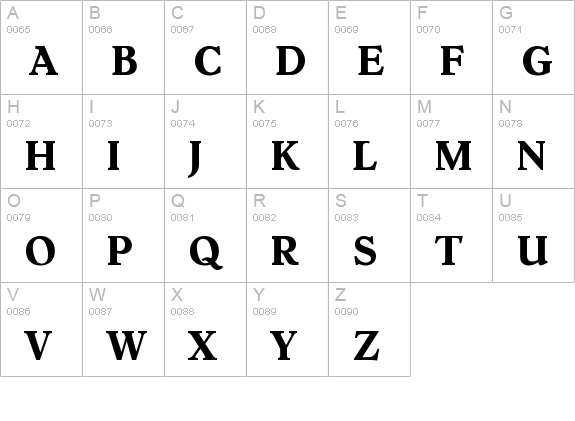
HobokenSerial-Bold is a strong, high-contrast variant in the HobokenSerial typeface family \xE2\x80\x94 well suited to headlines, attention-grabbing titles, and strong calls-to-action.
HobokenSerial-Bold is a striking and modern font that exudes confidence and strength. With its bold and commanding presence, this typeface is perfect for making a strong statement in your designs. The thick, clean lines of HobokenSerial-Bold make it ideal for headlines, logos, and branding projects that require a bold and impactful touch. What sets HobokenSerial-Bold apart is not only its powerful design but also its availability for free download at FontsMarket.com. This means that you can easily access this stunning font without any cost, making it a valuable asset for your creative projects. Whether you're working on a poster, website, or any other design project, HobokenSerial-Bold will elevate your work with its bold and dynamic style. Download HobokenSerial-Bold for free today at FontsMarket.com and take your designs to the next level with this impressive and versatile font.